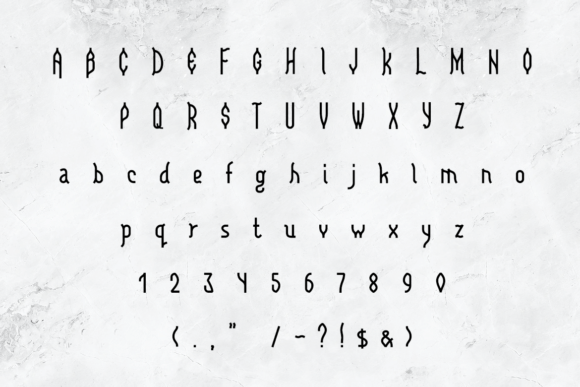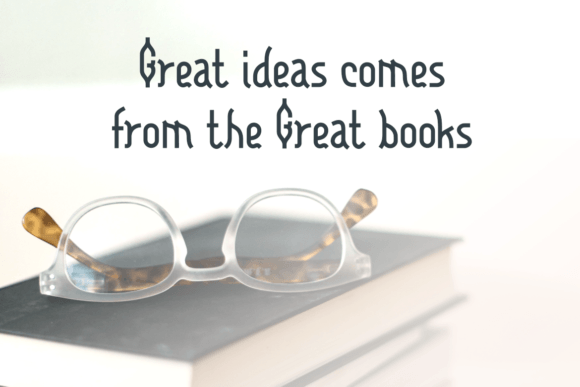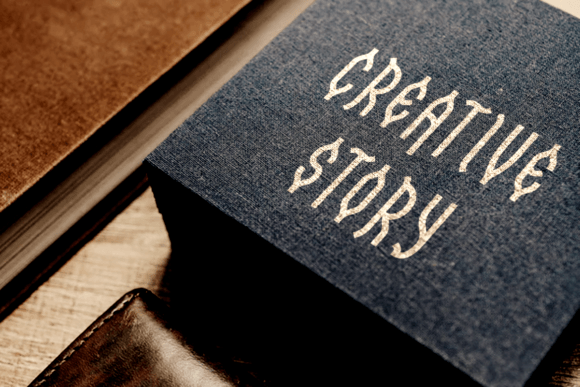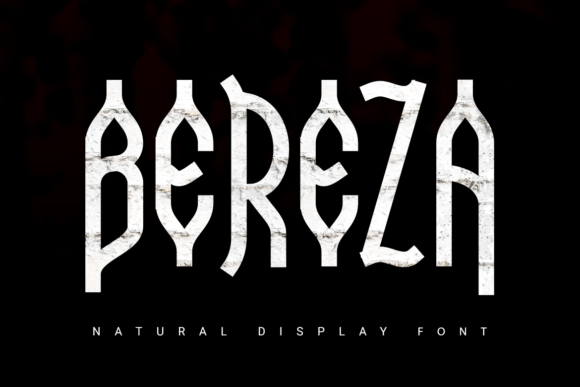
Bereza Font: A Playful Sans-Serif Font with Ethnic Flair
Are you tired of using the same old fonts for your design projects? Look no further than the Bereza font, a unique sans-serif font that adds a touch of playfulness and ethnic charm to any design. In this article, we’ll take a closer look at the Bereza font, its features, and how you can use it to elevate your designs.
What is Bereza Font?
Bereza is a sans-serif font designed with thick lines and ethnic motives. The font features elongated letters with protruding tips, giving it a playful and whimsical feel. The decorative font is perfect for making short titles, headings, and other design elements that need to stand out.
Key Features of Bereza Font
• Thick Lines: The Bereza font features thick lines that give it a bold and sturdy look.
• Ethnic Motives: The font incorporates ethnic motives, adding a unique and cultural touch to your designs.
• Elongated Letters: The elongated letters with protruding tips make the font more playful and eye-catching.
• Versatility: The font looks great on both dark and light backgrounds, making it versatile for various design applications.
How to Use Bereza Font in Your Designs
The Bereza font is perfect for designers and crafters who want to add a touch of playfulness and ethnic charm to their designs. Here are some ways you can use the Bereza font:
• Short Titles and Headings: Use the Bereza font to create eye-catching titles and headings that grab attention.
• Logos and Branding: The font’s unique features make it perfect for creating logos and branding elements that stand out.
• Signage and Displays: The Bereza font is great for creating signage and displays that need to be visible from a distance.
• Packaging and Labels: Use the font to add a touch of personality to your packaging and labels.
Tips for Using Bereza Font Effectively
Here are some tips for using the Bereza font effectively in your designs:
• Pair with Simple Fonts: Pair the Bereza font with simple fonts to create contrast and visual interest.
• Use on Contrasting Backgrounds: Use the font on contrasting backgrounds to make it stand out.
• Experiment with Colors: Experiment with different colors to find the perfect combination that works with your design.
• Keep it Simple: Keep your design simple and avoid clutter to let the font shine.
The Bereza font is a unique and playful sans-serif font that adds a touch of ethnic charm to any design. With its thick lines, elongated letters, and protruding tips, the font is perfect for making short titles, headings, and other design elements that need to stand out. Whether you’re a designer or crafter, the Bereza font is a great addition to your font collection.
FAQs about Bereza Font
What type of font is Bereza?
Bereza is a sans-serif font with ethnic motives.